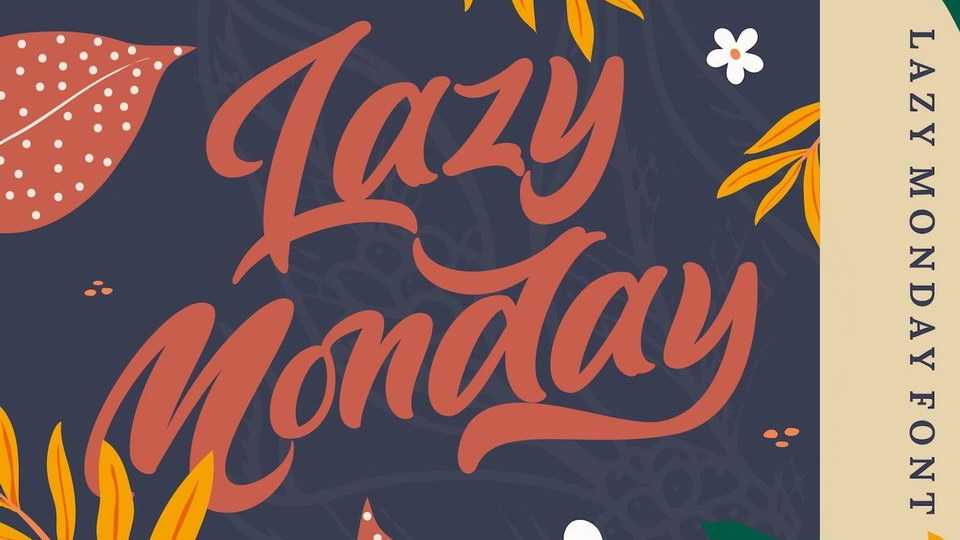
Download Lazy Monday font, a flowing bold hand lettered typeface. Lazy Monday features a varying baseline, smooth lines, gorgeous glyphs and stunning alternates.